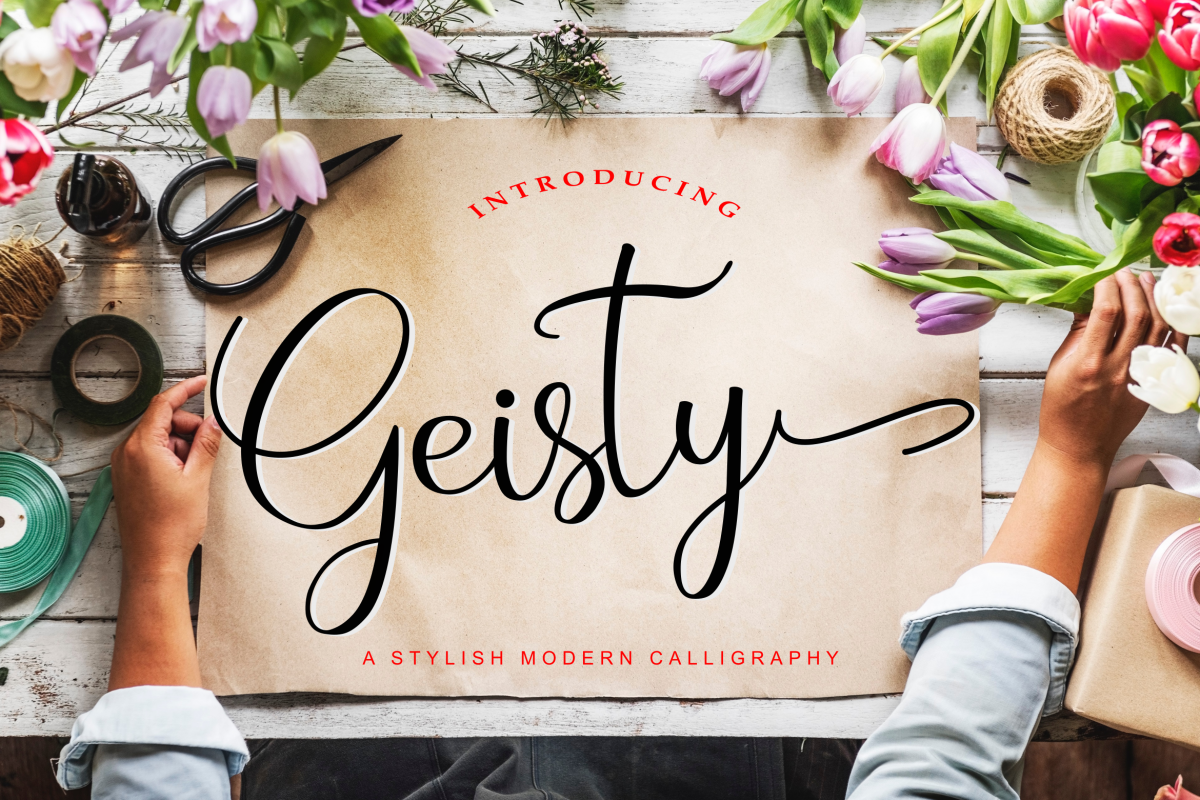
Geisty
Geisty-Regular
Introducing the Geisty font, a stylish modern calligraphy script font. It  will add an amazing look to your designs.It’s perfect for branding projects, logos, wedding designs, social media posts, advertisements, product packaging, product designs, label, photography, quotes, watermarks, invitations, stationery and any other project that needs a handwriting feel.